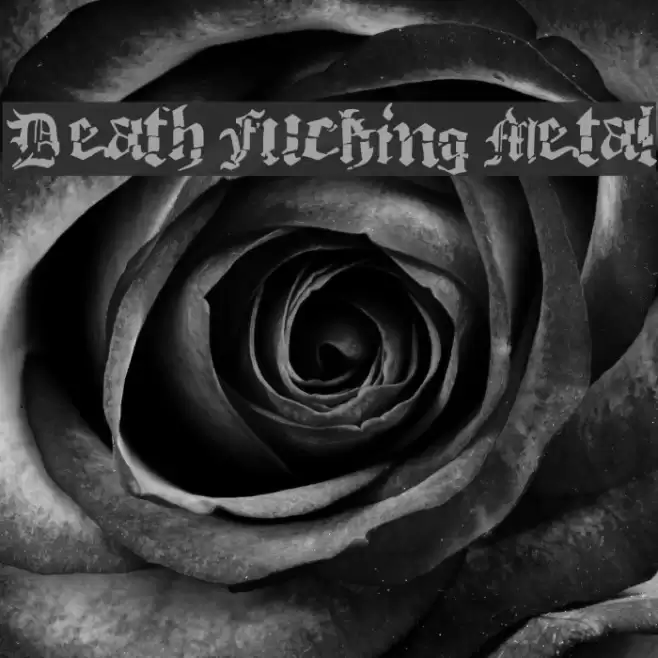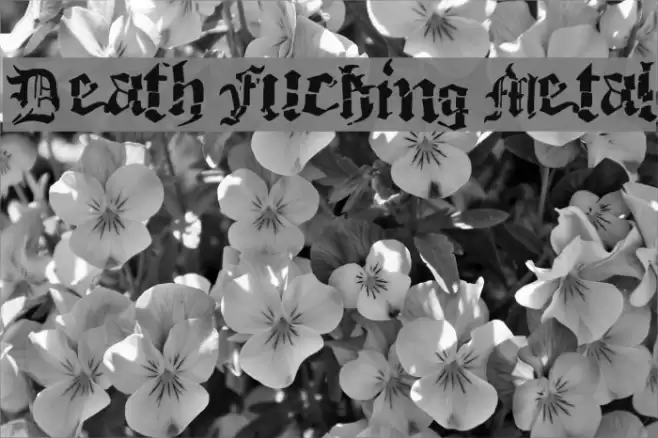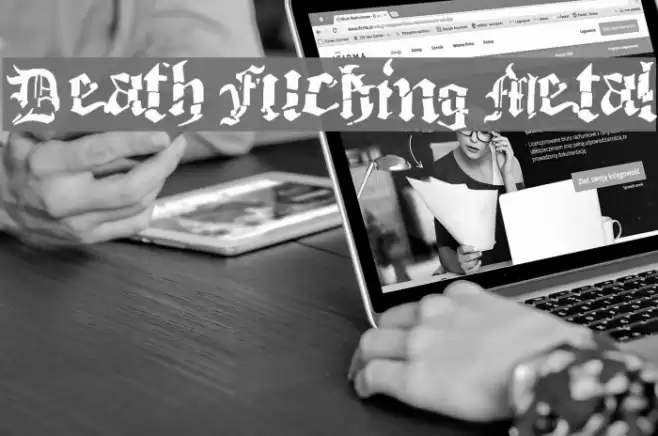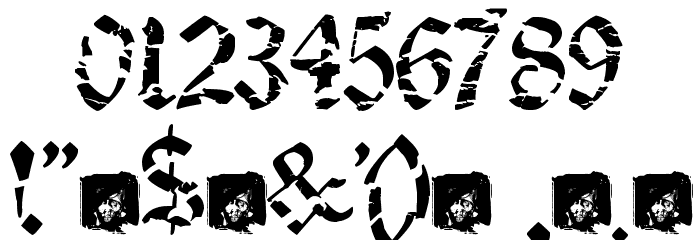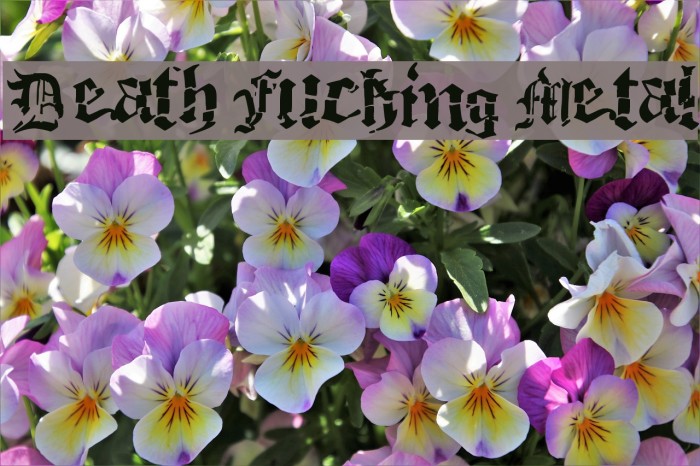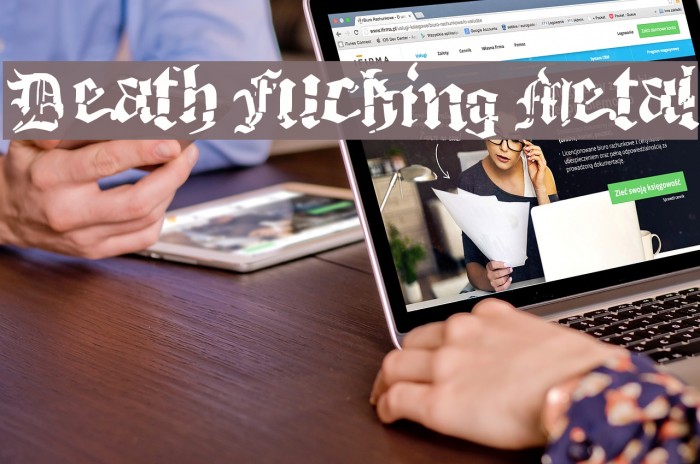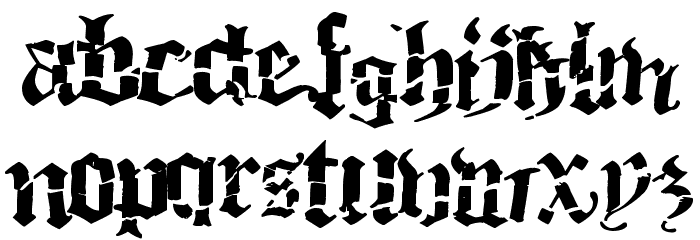
Death Fucking Metal Font
Death Fucking Metal Description
This font is a bold and aggressive blackletter style, characterized by its sharp, angular lines and intricate detailing. The uppercase letters are ornate and commanding, while the lowercase letters maintain a consistent style with slightly more fluidity. The numbers and special characters follow the same intense aesthetic, making the font cohesive across all characters. The design is reminiscent of medieval script, often associated with gothic or metal themes. Its high contrast and dense character spacing give it a striking appearance, suitable for impactful and dramatic designs.
A bold, gothic blackletter font with sharp, angular lines and high contrast from Gothic fonts.
- Proposed Projects: Ideal for album covers, band logos, posters, and any project requiring a gothic or metal aesthetic.
- Character Spacing: Tight
- Overall Style: Gothic, Decorative